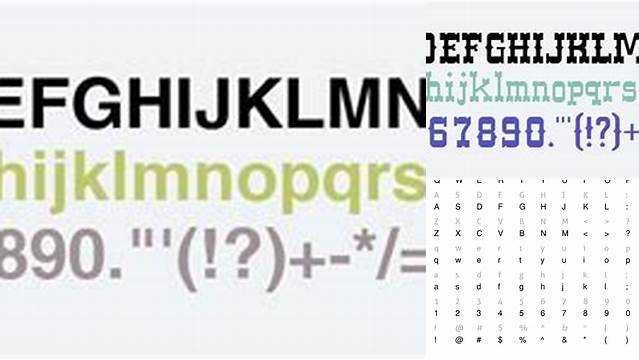
Helvetica Normal Western Font: Free Download Guide
Are you looking for the perfect font for your next design project? Look no further! In this guide, we'll dive deep into the world of Helvetica Normal Western font, exploring its history, characteristics, and most importantly, where to find it for free download. Helvetica is a wildly popular sans-serif typeface known for its clean lines, versatility, and timeless appeal. Its neutrality makes it suitable for a wide range of applications, from branding and advertising to editorial design and user interfaces. Developed in 1957 by Max Miedinger with Eduard Hoffmann, it has become a staple in the design world, gracing everything from corporate logos to street signs. Understanding the nuances of Helvetica can significantly enhance your design capabilities. Its geometric forms create a sense of order and efficiency, while its open counters improve readability, even at smaller sizes. This makes it a go-to choice for body text as well as headlines. Its adaptability also extends to different design styles, fitting seamlessly into both minimalist and maximalist aesthetics. The key to effectively using Helvetica lies in understanding its subtleties. For example, the spacing between letters (kerning) and lines (leading) can dramatically impact its appearance. Experiment with different weights and sizes to achieve the desired effect, and don't be afraid to pair it with other typefaces to create visual contrast. If you're aiming for a modern and clean look, consider using Helvetica for both your headlines and body text. For a more dynamic design, try pairing it with a serif font like Times New Roman or Garamond. Mastering the art of typography involves understanding how different fonts interact with each other, and Helvetica's neutrality makes it an excellent starting point. When selecting a font, always consider the overall message you want to convey. Helvetica's simplicity and clarity make it a great choice for projects that require a professional and trustworthy feel. However, it's important to avoid overusing it, as its ubiquity can sometimes make designs feel generic. The best way to avoid this is to experiment with different variations of Helvetica, such as Helvetica Neue or Helvetica Light, or to combine it with other unique design elements.
Understanding Helvetica Normal
Helvetica Normal is the standard weight and style of the Helvetica typeface family. It serves as the foundation for all other variations, embodying the core characteristics that make Helvetica so iconic. This particular style offers a balanced appearance, neither too bold nor too light, making it incredibly versatile for various design needs. Its clean, unadorned letterforms ensure readability and clarity, regardless of the application. The neutrality of Helvetica Normal is one of its greatest strengths. It doesn't impose a particular mood or style, allowing it to seamlessly integrate into diverse design concepts. This makes it a reliable choice for projects where the focus should be on the content rather than the typeface itself. Whether you're designing a corporate brochure, a website layout, or a mobile app interface, Helvetica Normal provides a solid foundation for effective communication. Its legibility and simplicity make it ideal for body text, while its understated elegance makes it suitable for headlines and subheadings. When working with Helvetica Normal, it's important to pay attention to details like kerning, leading, and tracking. These subtle adjustments can significantly impact the overall appearance and readability of your design. Experiment with different combinations to find the optimal balance for your specific project. Additionally, consider the context in which the font will be used. Will it be displayed on screen or in print? What is the target audience? Answering these questions will help you make informed decisions about font size, color, and placement. While Helvetica Normal is a versatile typeface, it's not always the best choice for every situation. In some cases, a more distinctive or decorative font may be needed to convey a specific message or create a particular mood. However, for projects that require a clean, professional, and timeless look, Helvetica Normal remains an excellent option. Its enduring popularity is a testament to its effectiveness and versatility. Many designers rely on Helvetica Normal as their go-to typeface for a wide range of projects. Its simplicity and clarity make it easy to work with, while its neutrality ensures that it won't clash with other design elements. By mastering the fundamentals of typography and understanding the nuances of Helvetica Normal, you can create visually appealing and effective designs that stand the test of time.
Alternatives to Helvetica Normal
If you're having trouble finding a free and legal version of Helvetica Normal, or if you simply want to explore other options, fear not! There are plenty of fantastic alternative fonts that capture the same clean, modern aesthetic. These alternatives can provide a fresh perspective while maintaining the readability and versatility that make Helvetica so popular. Let's explore some of the best alternatives available. Arial is perhaps the most well-known alternative to Helvetica. It's a widely available sans-serif font that comes pre-installed on most computers. While it's often criticized for being too similar to Helvetica, Arial is a perfectly acceptable choice for many design projects. It offers excellent readability and is suitable for both body text and headlines. Roboto is a Google Font that has gained immense popularity in recent years. It's a modern sans-serif font with a geometric design that makes it highly legible on screen. Roboto is an excellent choice for web design, mobile apps, and digital publications. Its versatility and clean lines make it a great alternative to Helvetica. Open Sans is another popular Google Font that offers a friendly and approachable aesthetic. It's a humanist sans-serif font with open forms and a neutral appearance. Open Sans is highly legible and works well in a variety of design contexts. It's a great option for projects that require a clean and modern look with a touch of warmth. Lato is a sans-serif typeface designed by Łukasz Dziedzic. In the creation of Lato, Łukasz tried to carefully balance some potentially conflicting priorities. He wanted to create a typeface that would appear quite transparent when used in body text but would display some original traits when used in larger sizes. Inter is a typeface specially designed for computer screens. With a tall height, it is easily readable even in mixed case copy. Inter is an open source font family, open for all to use and contribute to its development. These are just a few of the many excellent alternatives to Helvetica Normal. By exploring different font options, you can discover new and exciting ways to express your creativity and enhance your designs. Remember, the key to successful typography is to choose fonts that are appropriate for the project and that communicate the intended message effectively. Don't be afraid to experiment with different combinations and find what works best for you. Also consider accessibility when choosing a font. Make sure the font you choose is easy to read for people with visual impairments. Use sufficient contrast between the text and background colors, and avoid using overly decorative or stylized fonts that may be difficult to decipher. By considering accessibility from the outset, you can ensure that your designs are inclusive and accessible to everyone.
In conclusion, while obtaining a free, fully licensed version of Helvetica Normal Western font can be challenging due to its commercial nature, numerous alternatives and strategies exist to achieve a similar aesthetic. By exploring font libraries, utilizing font identification tools, and considering similar free fonts like Arial, Roboto, and Open Sans, designers can find suitable options for their projects. Remember to always prioritize legal and ethical font usage, respecting the rights of font designers and foundries. With careful research and a creative approach, you can find the perfect font to elevate your designs without breaking the bank. Always double-check the licenses. So go ahead, explore the world of typography and discover the endless possibilities that await you! With a little effort, you can find the perfect font to bring your creative visions to life. And remember, the most important thing is to have fun and let your creativity shine! Happy designing, guys!